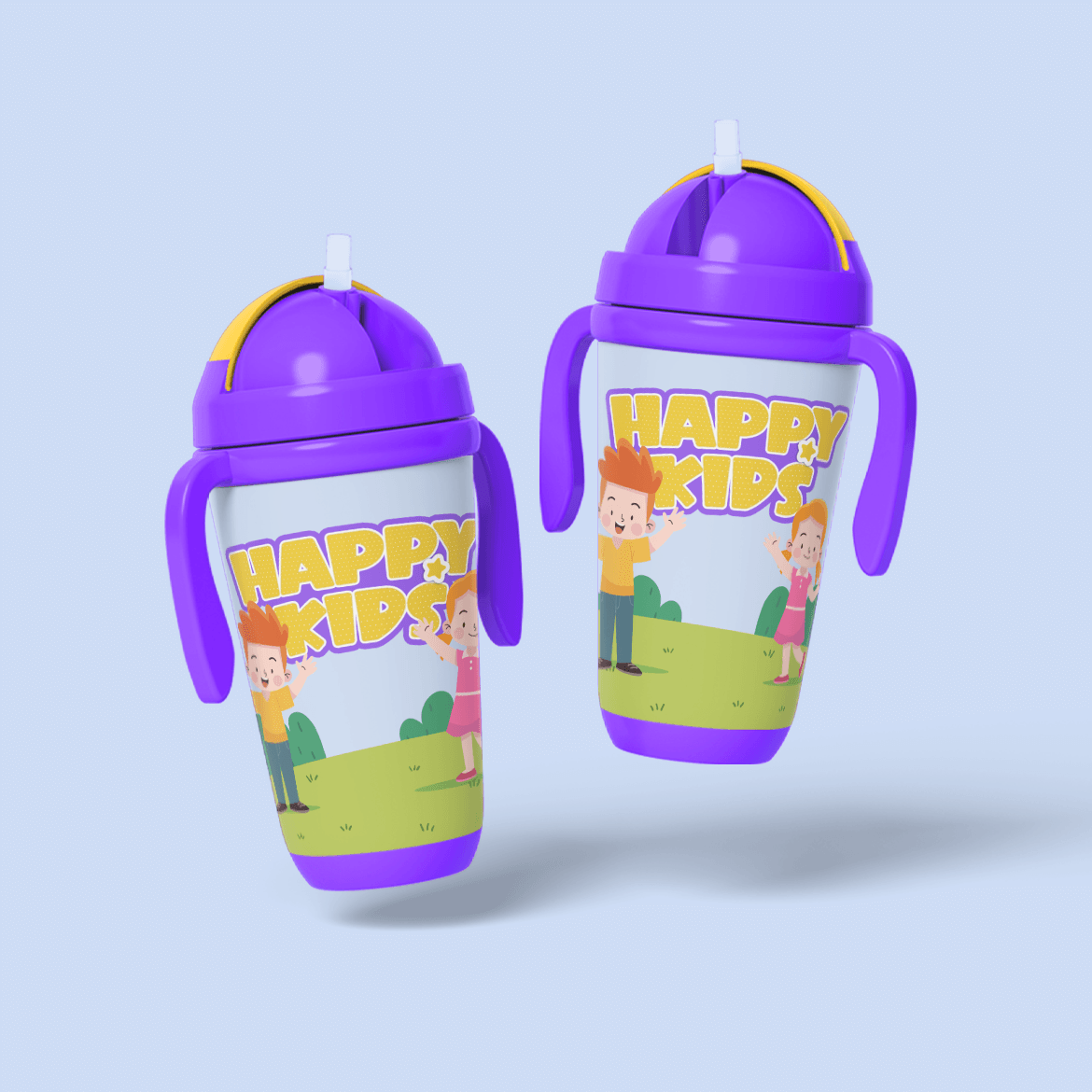
Kids Edition – Kids Display Typeface
Ideal for creating engaging headlines, colorful posters, playful merchandise, and branding materials, Kids Edition ensures your text stands out with a lively and whimsical presence. Each character is crafted to be easily readable while adding a touch of fun and excitement to any design.